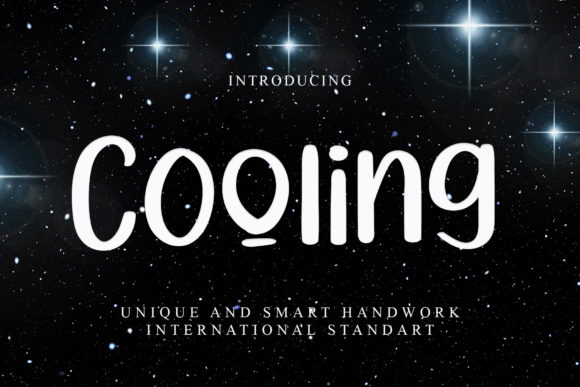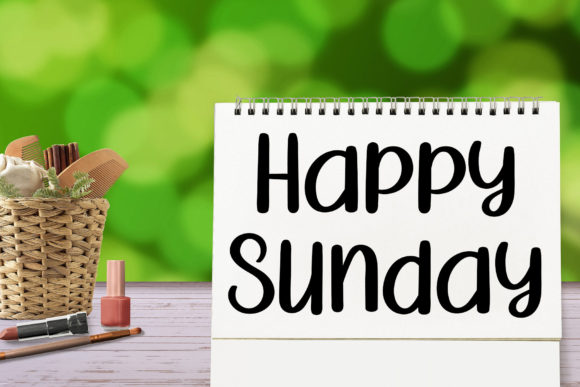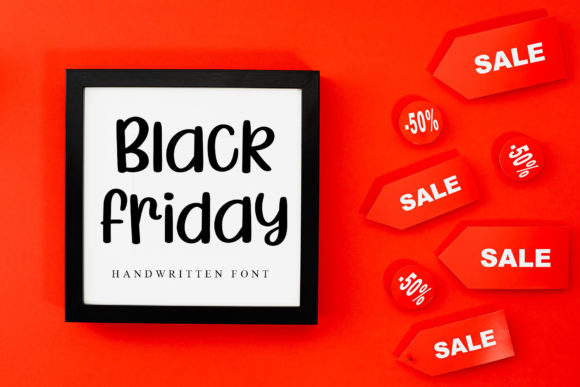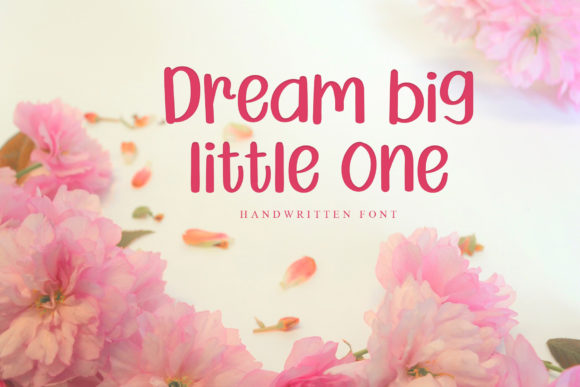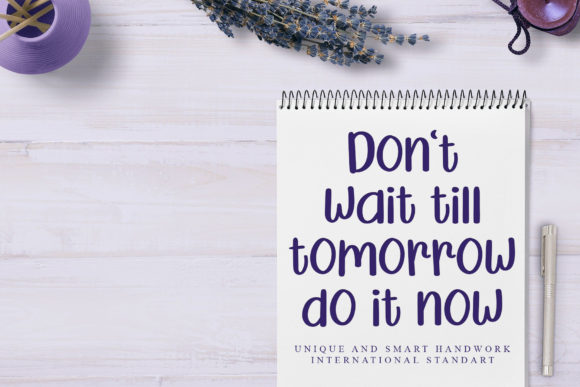
Cooling Font
About Cooling Font
Cooling is a fun and playful handwritten font with lovely characters that seem to dance along the baseline. Use it for your most creative ideas, and notice how it makes them come alive!